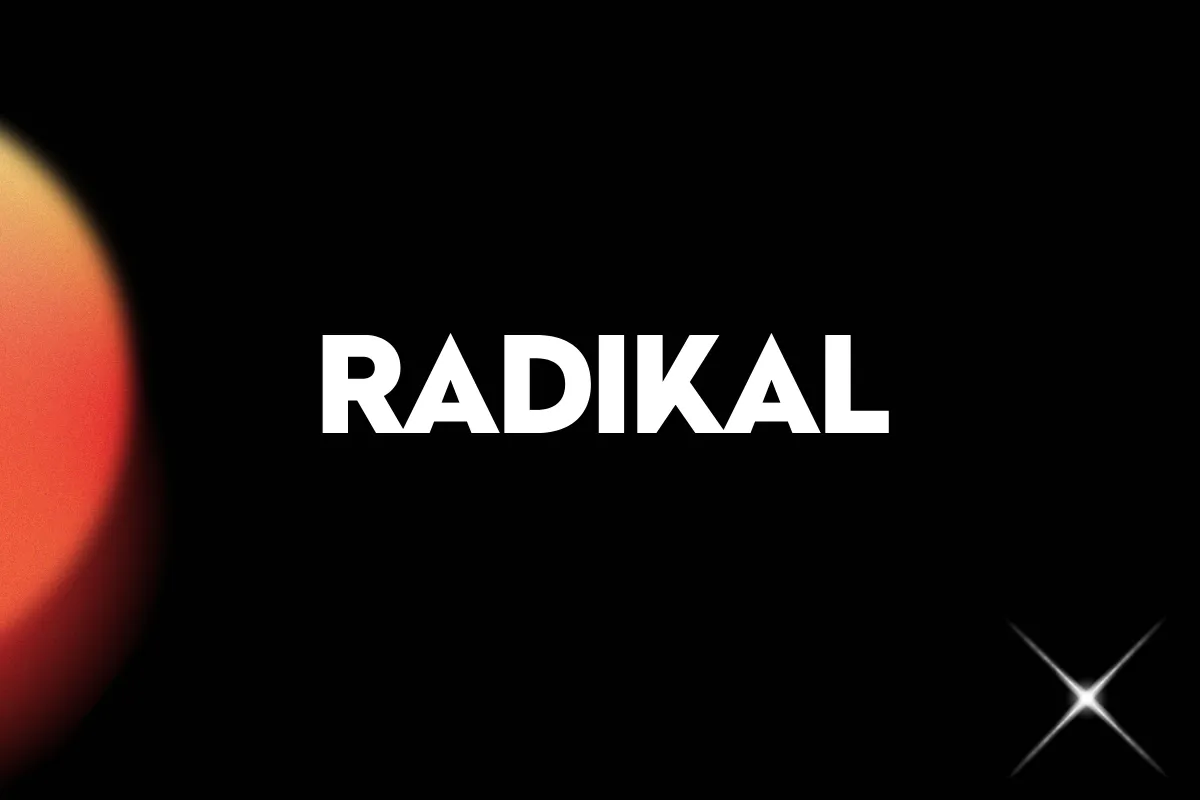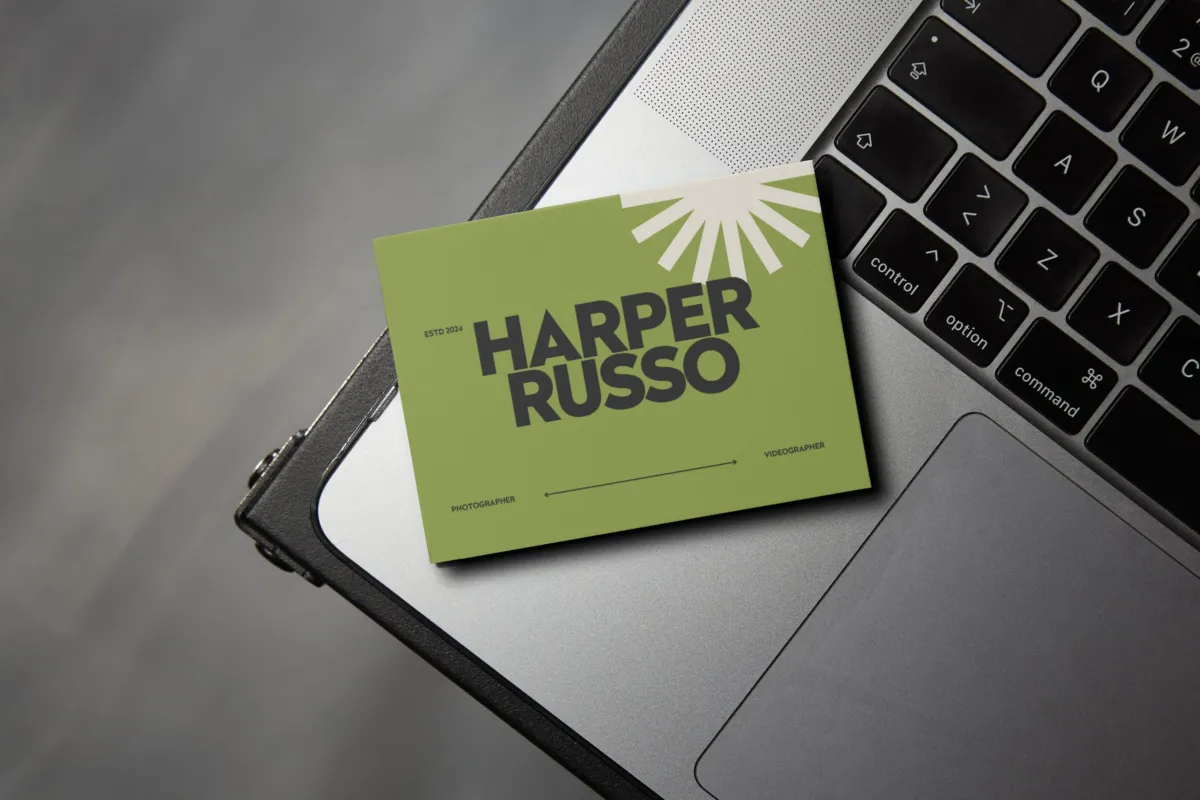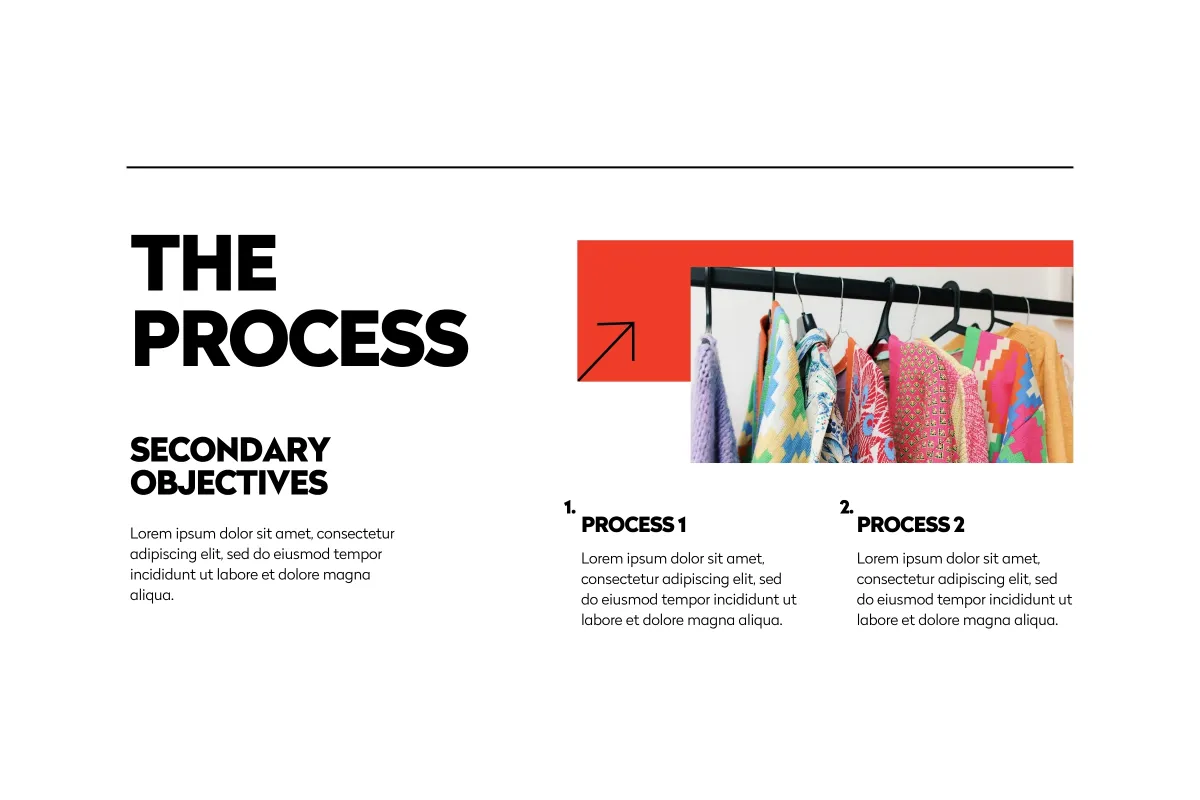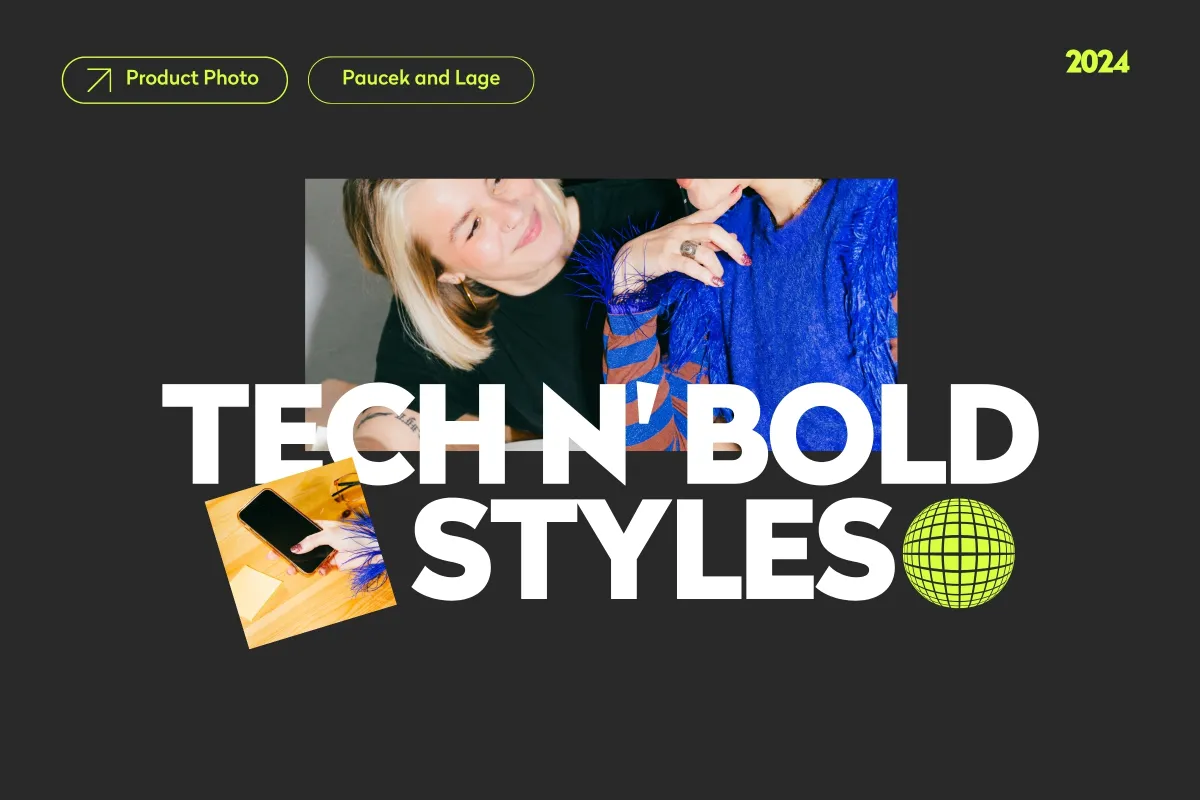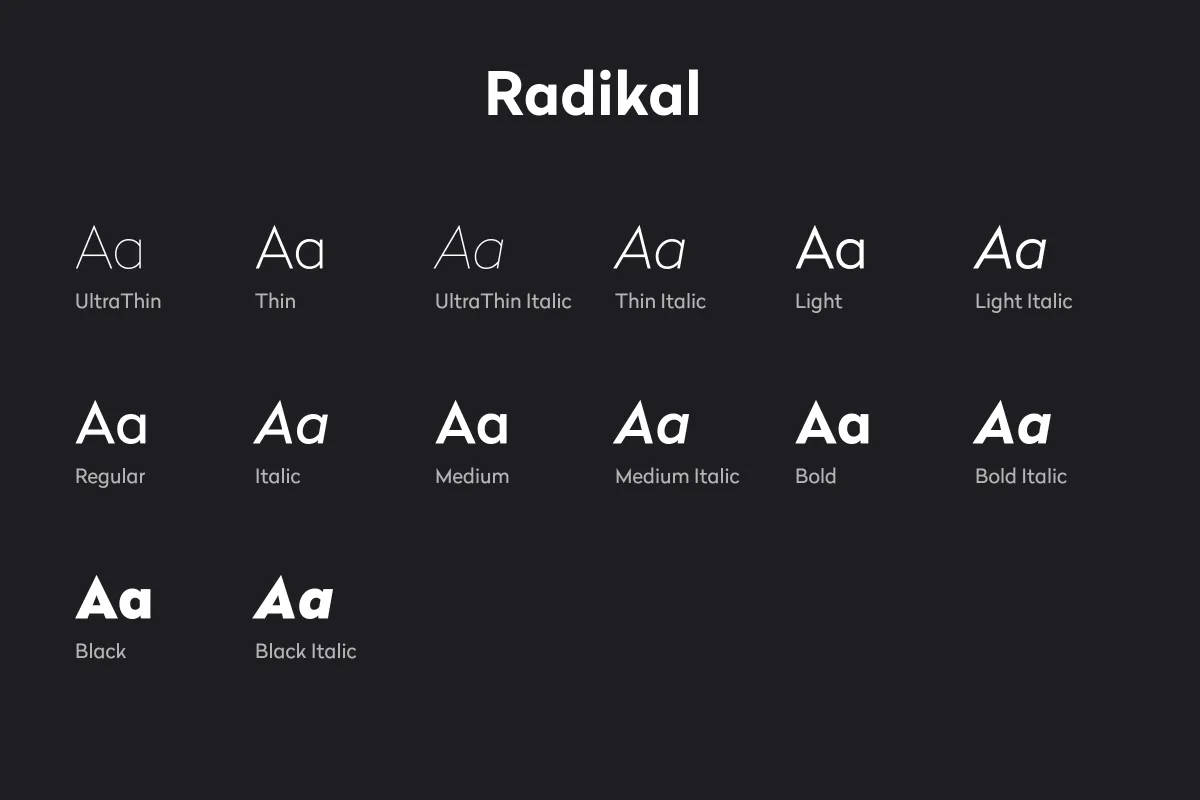
Radikal Font
Radikal is a geometric sans serif font family focused on typographic purity. The family has 7 weights, UltraThin through Black, and each weight includes italics, giving you 14 styles total. Looking at the specimens, the geometric forms are sharp and precise. The hairline weight shows extremely thin strokes, while the bolder weights keep those same geometric proportions intact. Details like the elegant ampersand and consistent letterform construction show the minimalist approach.
OpenType features are extensive here. You get proportional figures, tabular figures, numerators, superscripts, denominators, scientific inferiors, subscripts, ordinals, fractions, and ligatures. The weight range makes it flexible; lighter weights work for body copy, while Black delivers impact for headlines. It’s well-suited for magazines and posters where geometric precision matters.
Language support is thorough. Latin coverage includes over 70 languages: Afrikaans, Albanian, Basque, Catalan, Croatian, Czech, Danish, Dutch, English, Estonian, Finnish, French, German, Hungarian, Icelandic, Indonesian, Italian, Latvian, Lithuanian, Norwegian, Polish, Portuguese, Romanian, Slovak, Slovenian, Spanish, Swedish, Turkish, Welsh, and many more. Cyrillic support covers 24 languages, including Belarusian, Bulgarian, Kyrgyz, Macedonian, Moldovan, Russian, Serbian, Tatar, and Ukrainian.